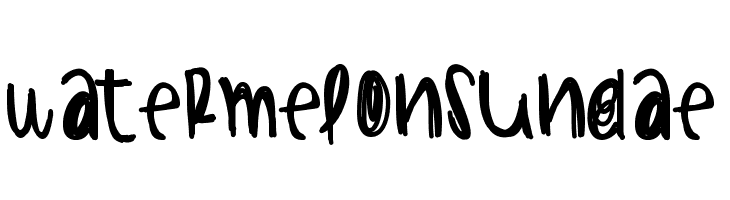
A font inspired by early Western Greek scripts with an ancient, hand-drawn aesthetic.
A bold, Gothic-style font with intricate, angular designs.
A playful, casual handwritten font with smooth, rounded strokes.
A bold, geometric font with a futuristic and industrial style.
A playful, bold, hand-drawn style font with a whimsical and casual feel.
A bold, futuristic font with geometric and angular design.
A playful, bold font with rounded, bubbly characters and a whimsical style.